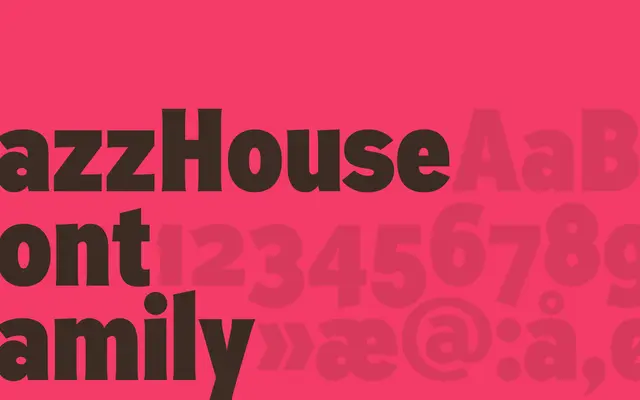
Jazzhouse
A characterful display serif from Playtype with an expressive, jazz-era sensibility suited to editorial and headline work.
Jazzhouse takes its cues from the graphic vernacular of mid-century jazz culture, lending it a warmth and personality that distinguishes it from more neutral display serifs. The scraped page content is sparse, but the tone suggests a typeface built around voice and atmosphere rather than versatility. Best suited to editorial headlines, posters and branding where a distinctive period character is wanted.
The name and the sparse page content suggest a characterful, expressive display serif in the jazz-era vernacular, though details are limited from the scraped content.